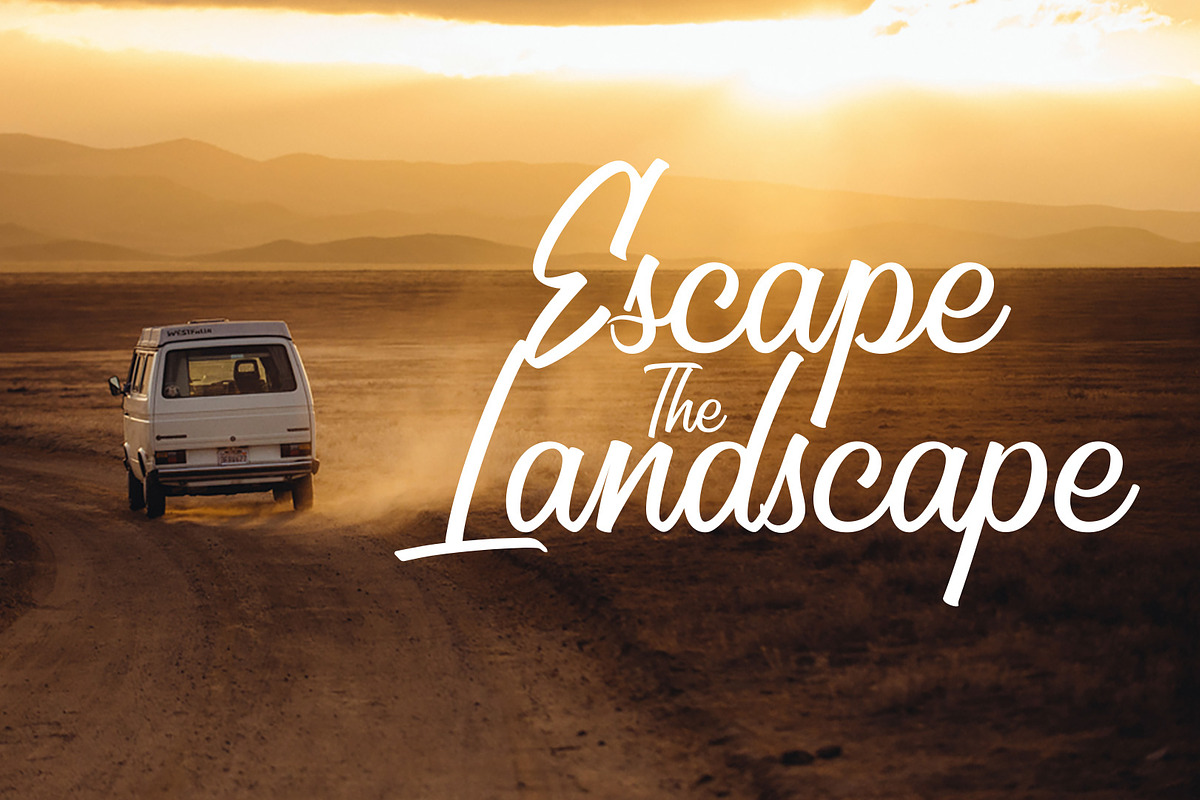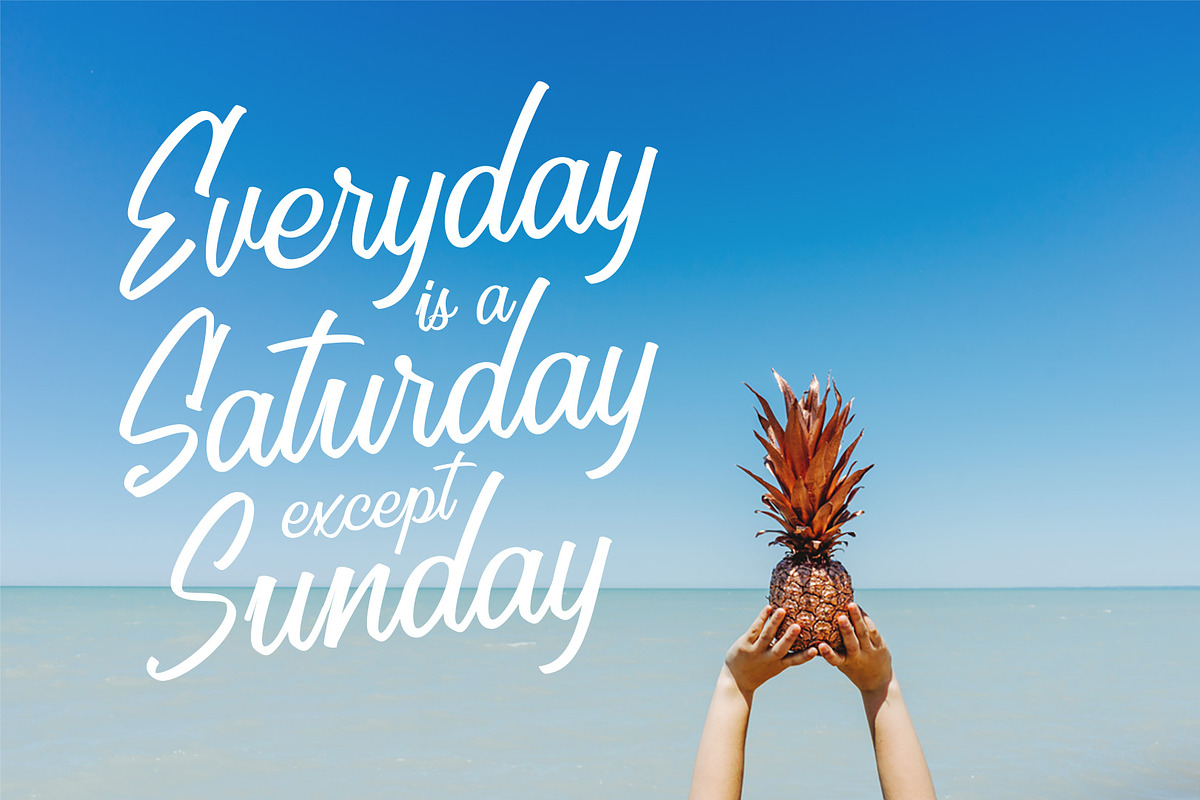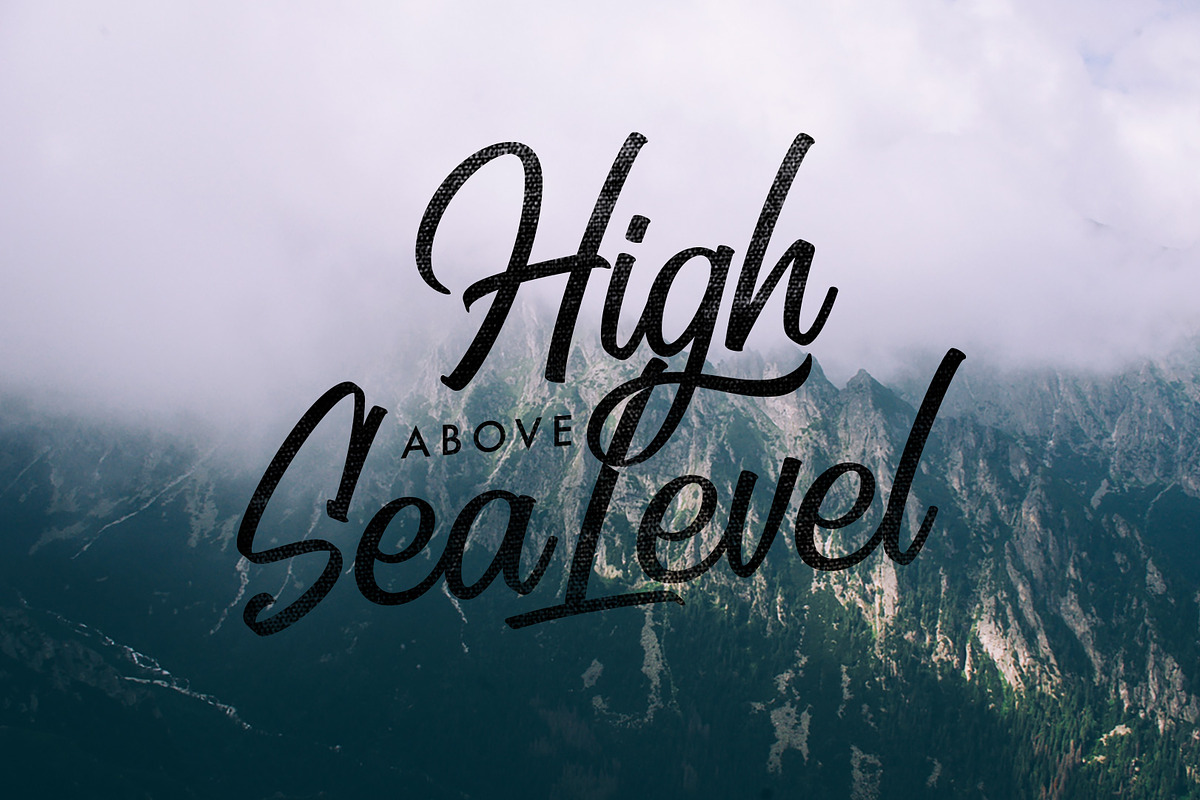
Karlberg Script
Introducing Karlberg Script The Simply Clean Brush Font
Modern Script with sense of calligraphy style comes with clean style finishing. Created with 45º brush to keep the stroke consistent. some of the characters have the alternative characters especially on the ascender, descender and also the Uppercase. This fonts are great for Logotypes, Posters, Digital Lettering Arts, Clean design, Branding Design, Sign, etc.
- Contextual Alternates